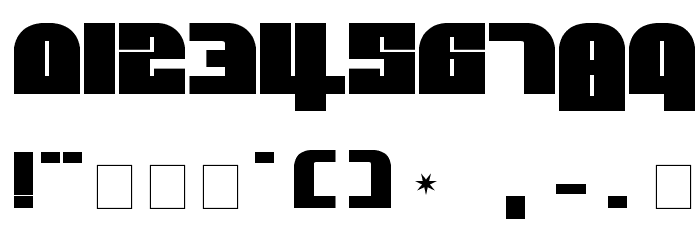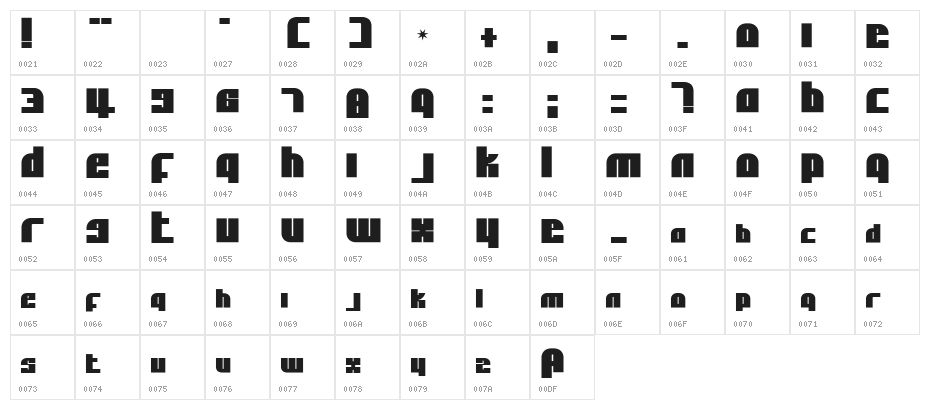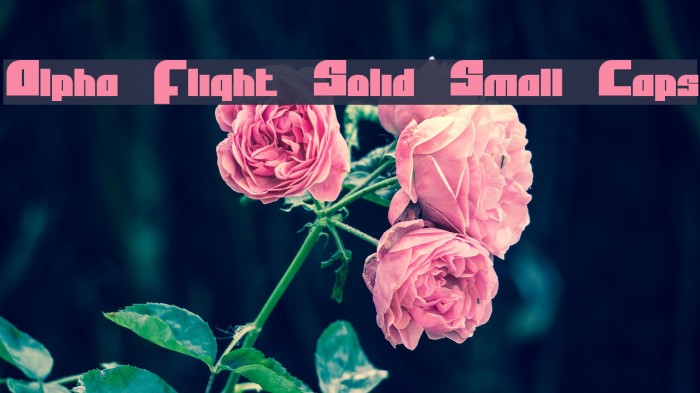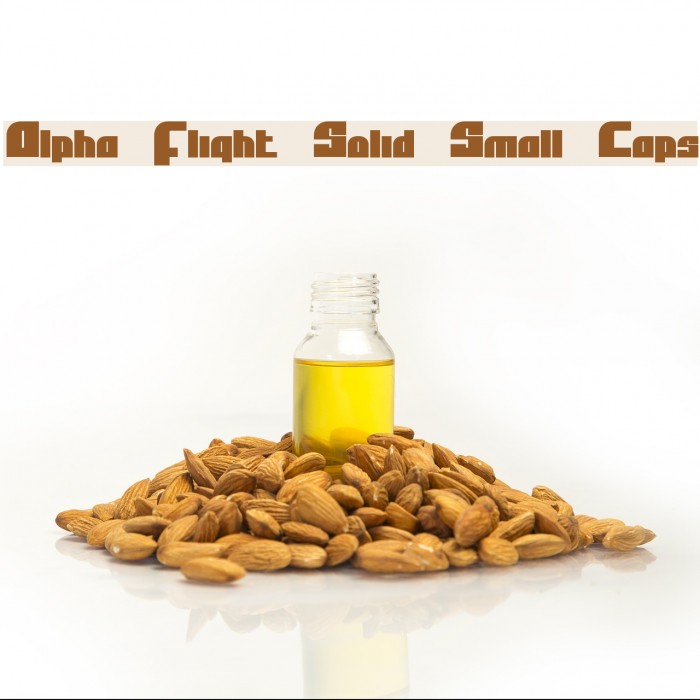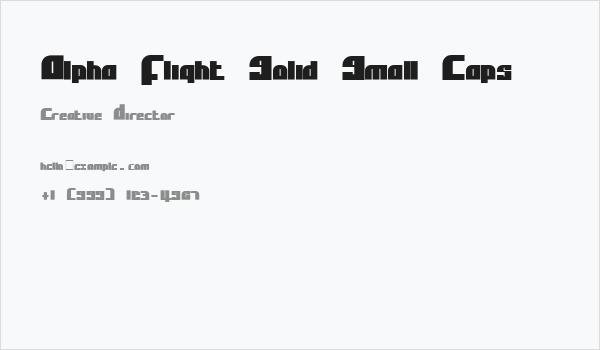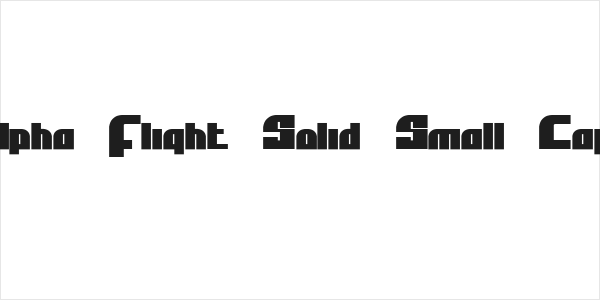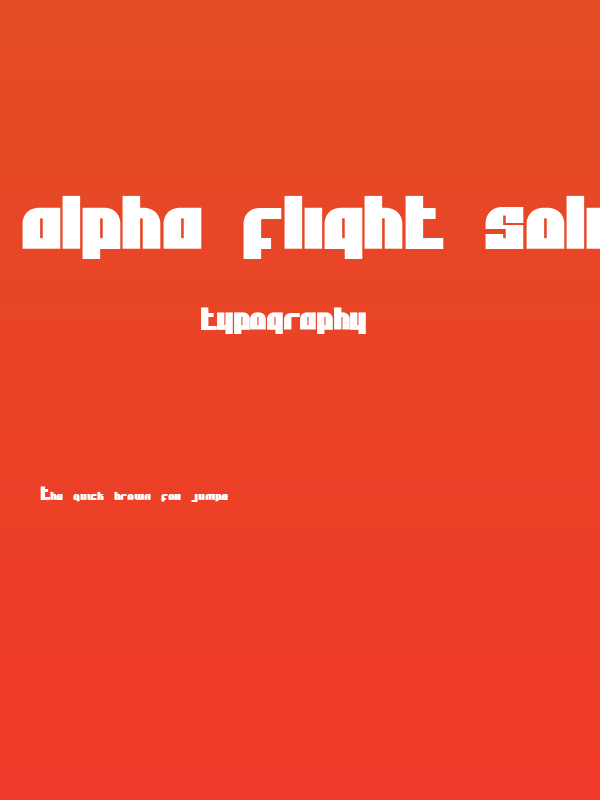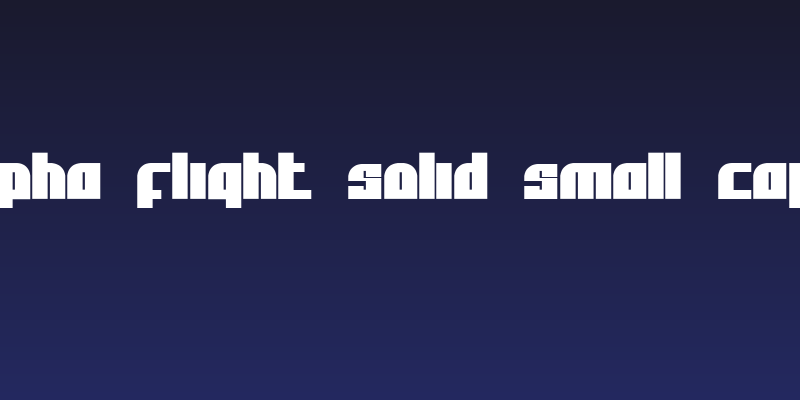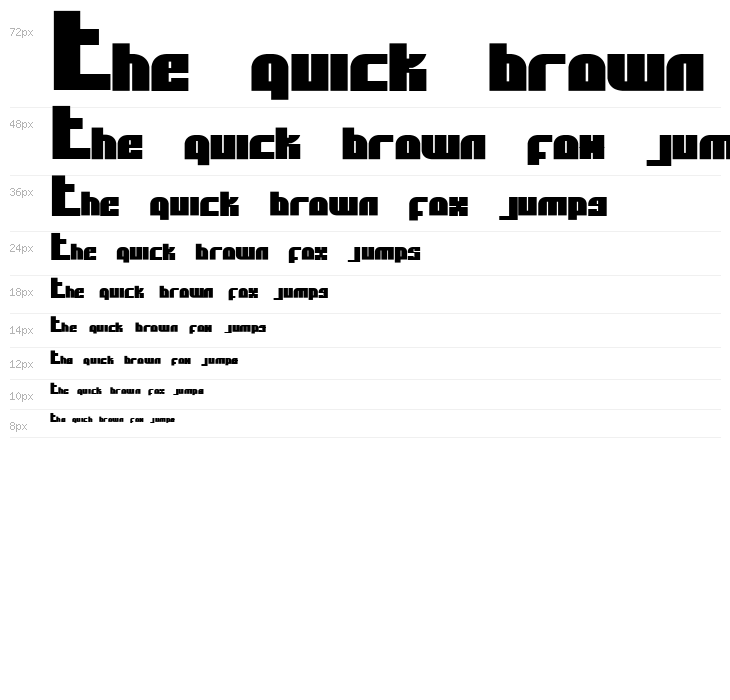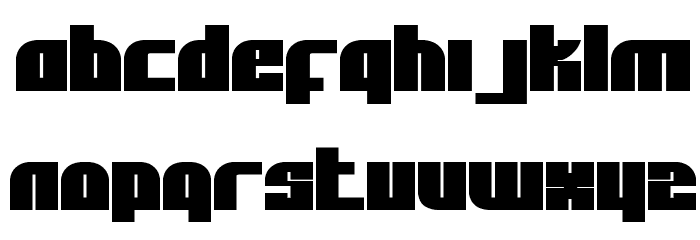
Alpha Flight Solid Small Caps Font
Alpha Flight Solid Small Caps Description
This font features a bold, geometric design with a strong presence. The characters are constructed with solid, block-like shapes, giving them a futuristic and digital appearance. The uppercase and lowercase letters share a similar height, enhancing the uniformity and compactness of the typeface. The numbers and special characters maintain the same bold and angular style, ensuring consistency across all glyphs. This font's design is highly stylized, making it suitable for attention-grabbing headlines and logos.
| Proposed Projects | Ideal for sci-fi themed projects, tech branding, video game titles, and modern poster designs. |